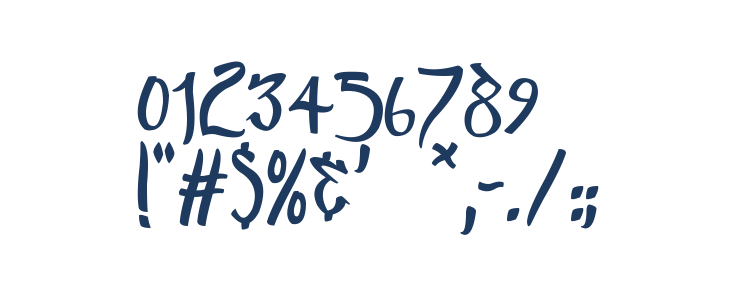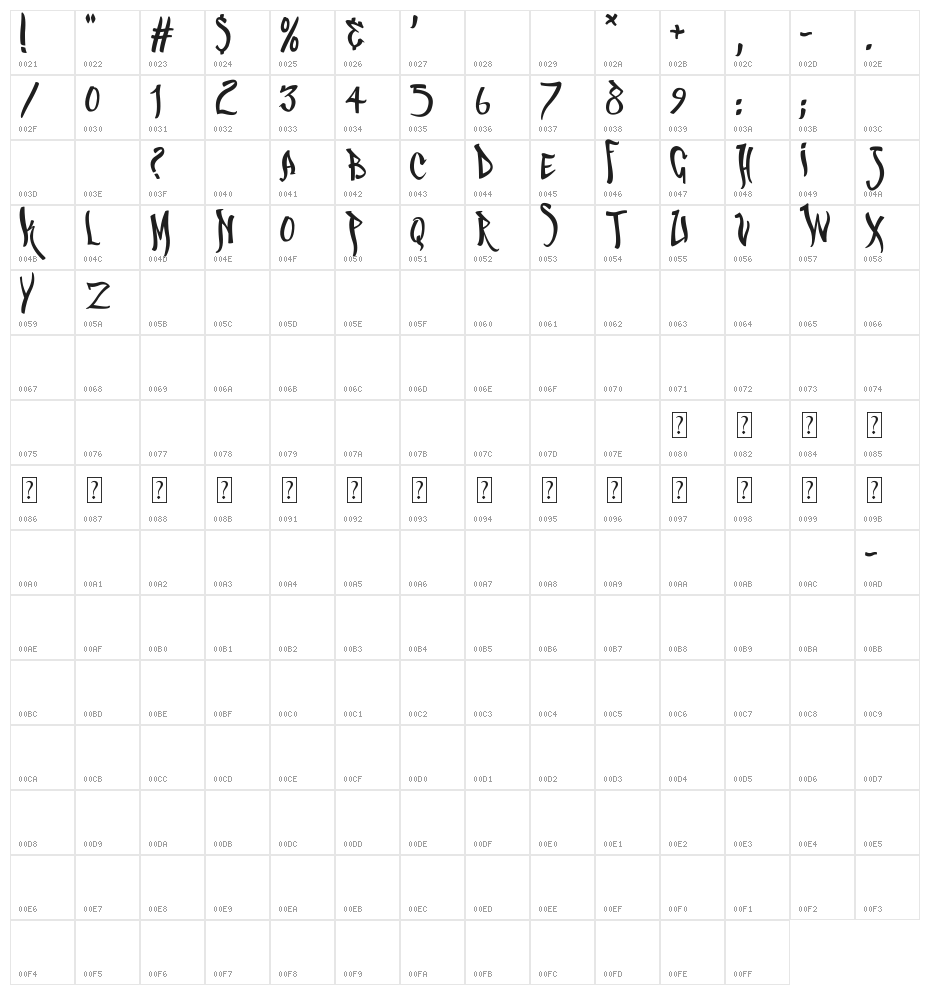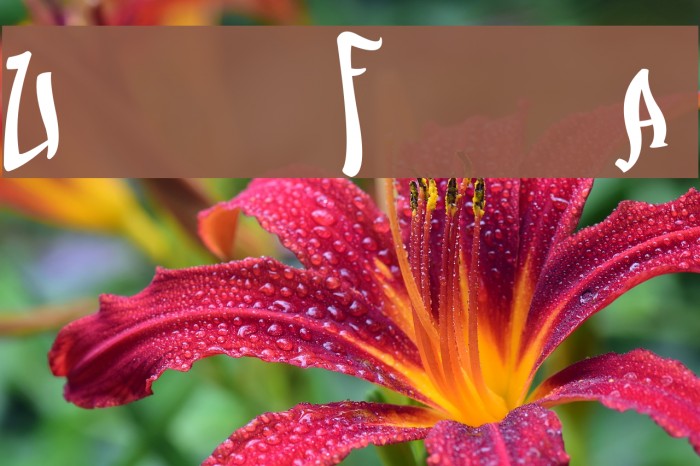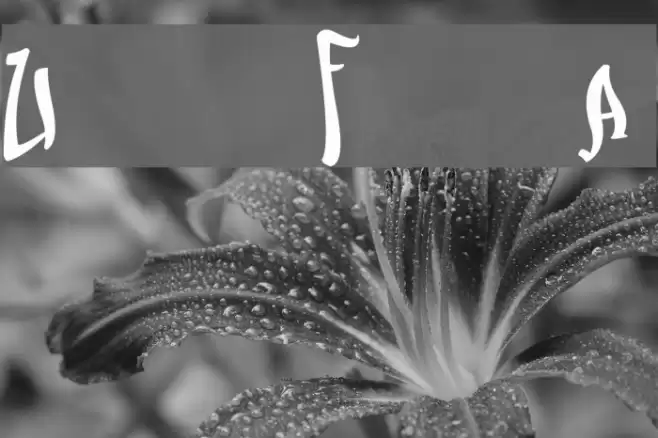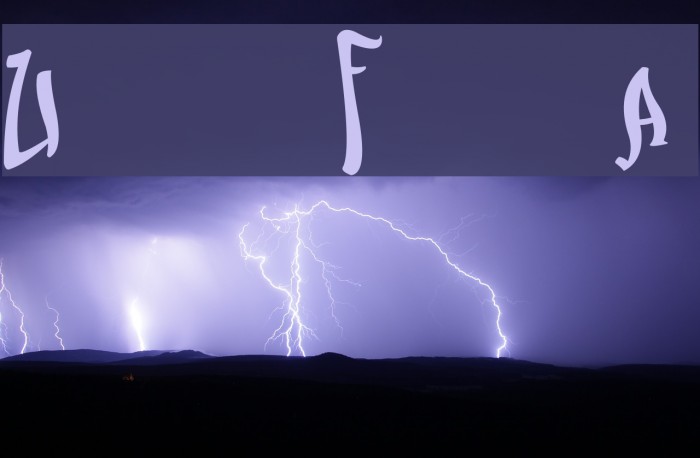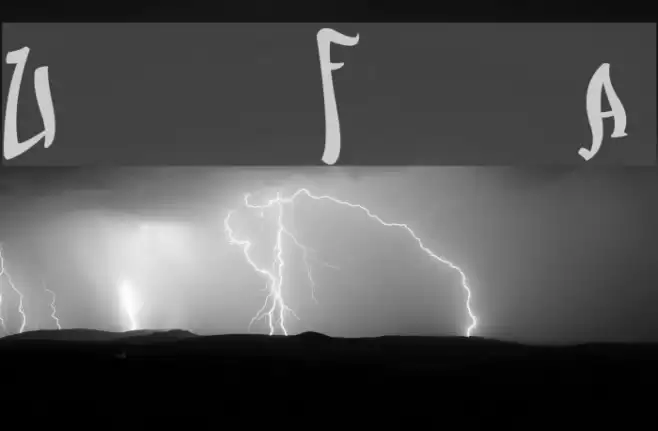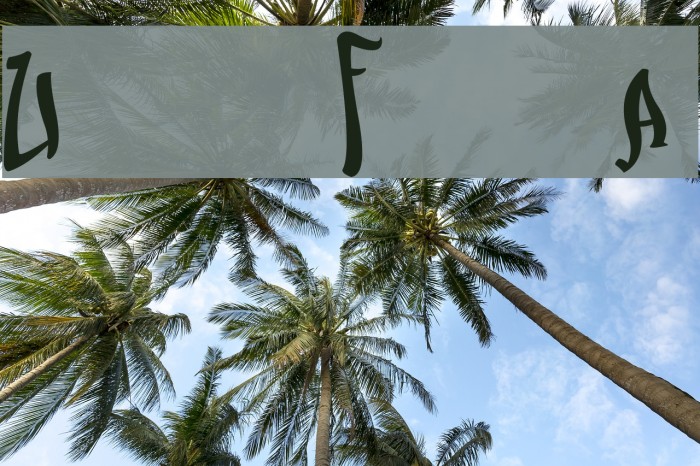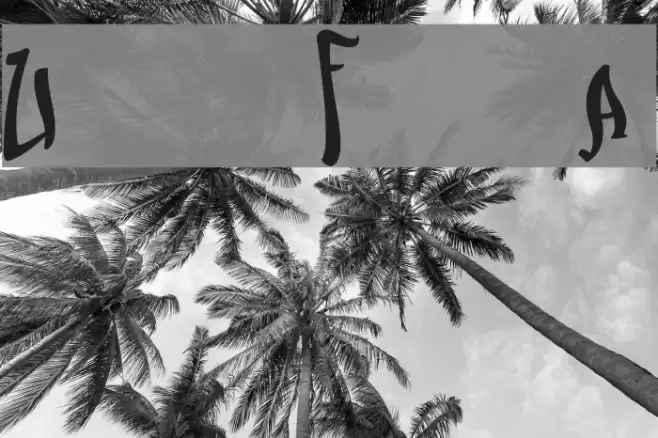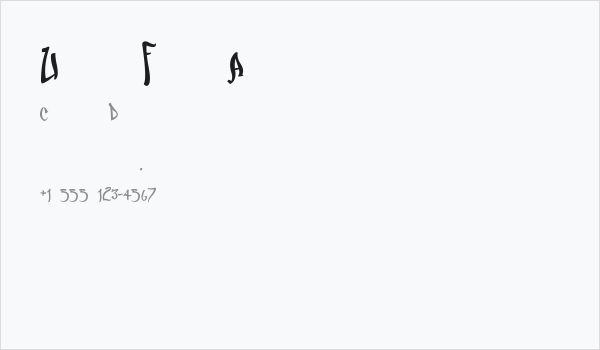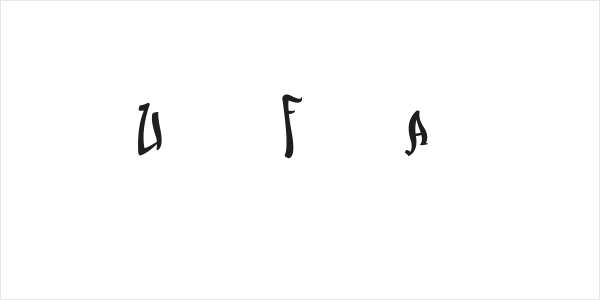
Urban Fresh Air Font
Urban Fresh Air Description
This font features a dynamic and energetic style with a hand-drawn appearance. The letters are tall and slightly irregular, giving them a playful and spontaneous feel. The strokes are bold and vary in thickness, adding to the lively character of the font. The uppercase letters are particularly expressive, with exaggerated curves and angles that create a sense of movement. The lowercase letters maintain the same spirited style, complementing the uppercase set. Numbers and special characters are designed with the same attention to detail, ensuring consistency throughout. This font is ideal for projects that require a touch of creativity and flair.
| Proposed Projects | Ideal for posters, creative branding, children's books, and artistic projects. |